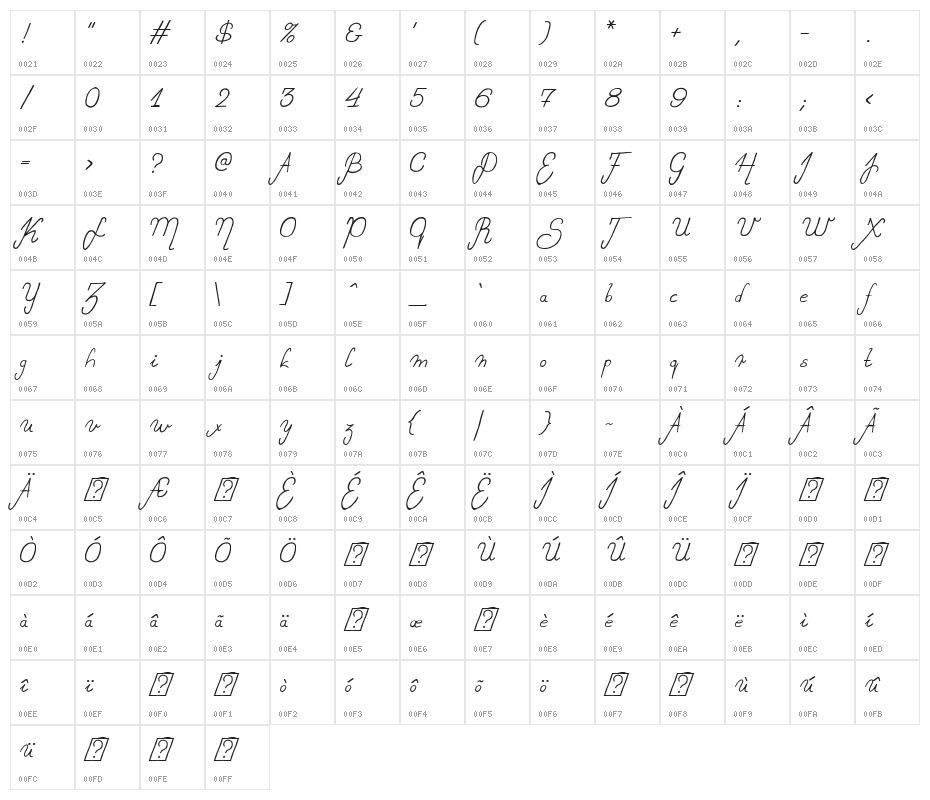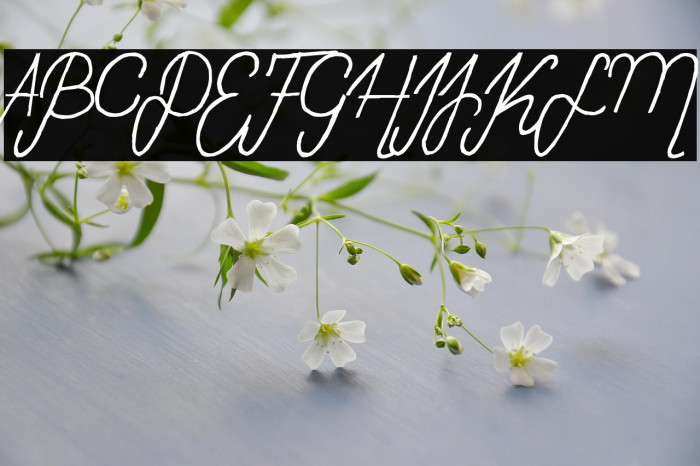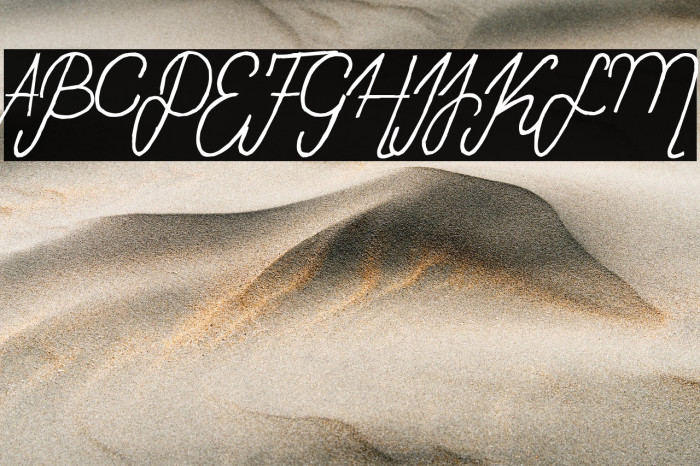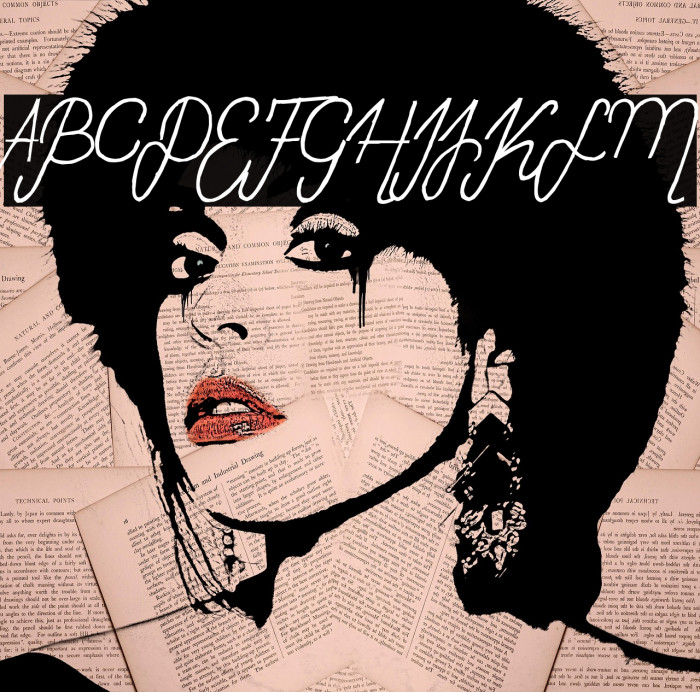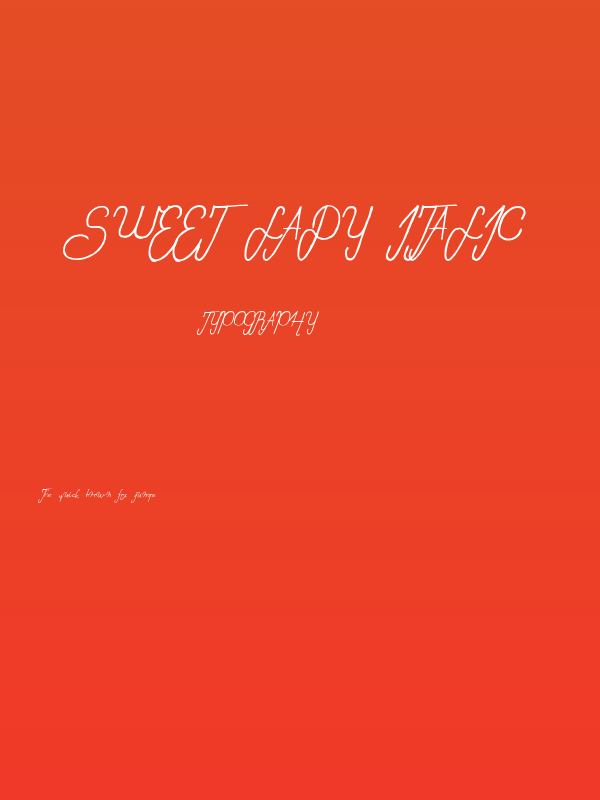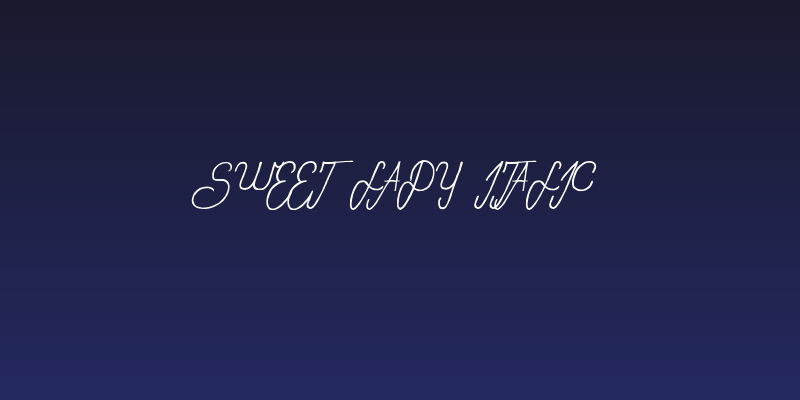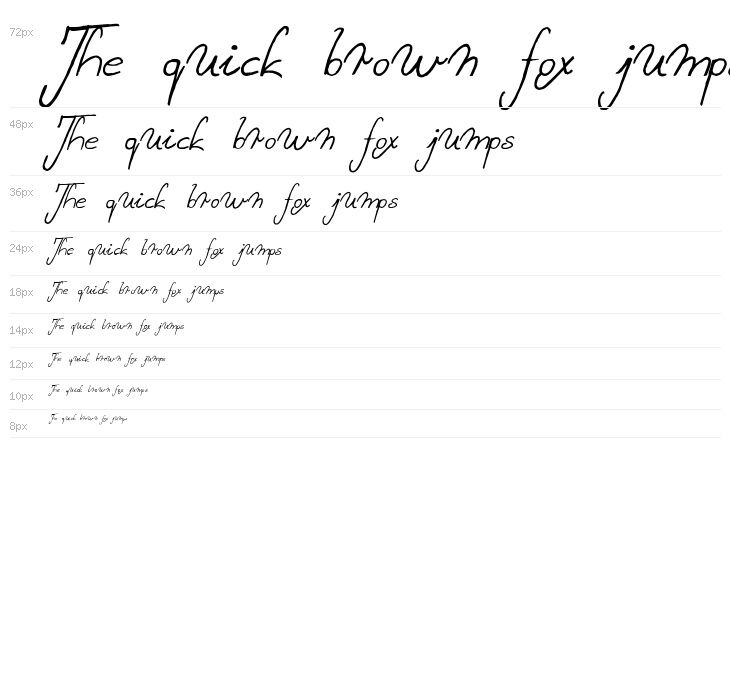
Sweet Lady Italic Font
Sweet Lady Italic Description
This font features an elegant and flowing script style, characterized by its smooth, cursive strokes and a slight slant to the right, giving it an italicized appearance. The uppercase letters are tall and graceful, with sweeping lines that extend beyond the baseline, while the lowercase letters maintain a consistent flow, enhancing readability. The numerals are distinct and maintain the same fluidity, ensuring they complement the overall style. Special characters are thoughtfully designed to match the script's aesthetic, making this font versatile for various uses. Its delicate and sophisticated appearance makes it ideal for formal invitations, branding, and decorative purposes.
| Use Case | Headlines, Invitations, Decorative text |
| Proposed Projects | Ideal for wedding invitations, elegant branding, greeting cards, and decorative projects. |